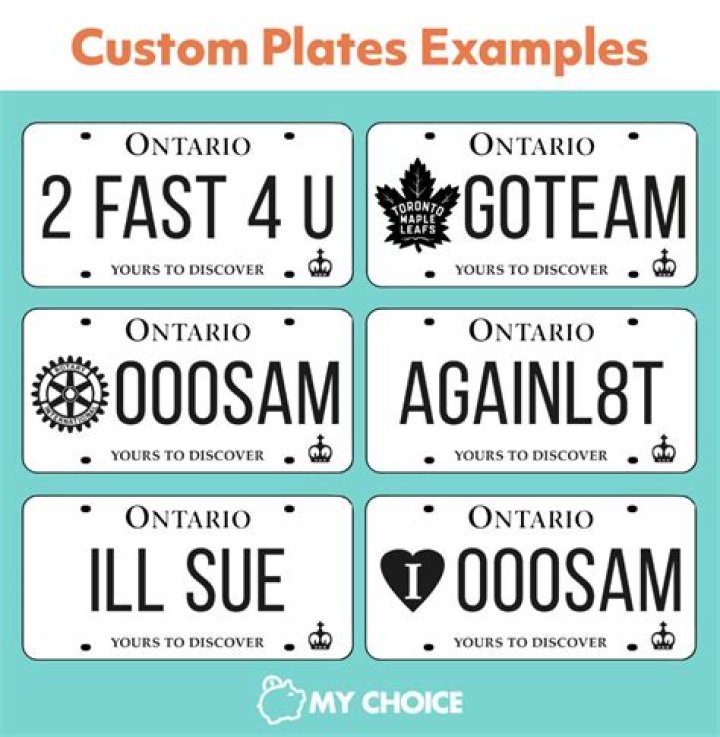
Driver Gothic
Simply so, what is the font used on license plates?
The FE-Schrift or Fälschungserschwerende Schrift (forgery-impeding typeface) is a sans serif typeface introduced for use on licence plates. Its monospaced letters and numbers are slightly disproportionate to prevent easy modification and to improve machine readability.
Similarly, is the letter O used on license plates? Several states do not regularly use certain letters — most commonly the letters I, O, and/or Q — in their plates, except on vanity plates, so as not to confuse observers with the numbers one and zero.
Then, what font is used on California license plates?
License Plate Font Specimens: Penitentiary Gothic (California)
What letters are not used on Texas license plates?
California currently only uses I, O, and Q in between two other letters, for example "1AQA000". A unique example of character use is Texas, which used to issue serials using all 26 letters but currently skips all vowels along with the letter Q on passenger plates (as these letters are reserved for truck plates).
All letters (except I) and numbers (except 1) are the same height and width. Characters must be 50mm wide and 79mm tall. What is virtual plate?
What font is used for South African number plates?
Only the GE font, specifically designed for the South African number plate industry, may be used for number plates. What font is used on Victorian number plates?
These plates use the FE-Schrift font and look like German plates. How wide are license plates?
For standard plates, which are currently in the format 1ABC123, the letters I, O, and Q are not used for the first or third letter, because then they could be confused with numbers. There are also some 3-letter combinations that are not used because they could conceivably be considered offensive. What does MC mean on a license plate?
Typically an O and a 0 have slightly different shape. The 0 is almost always a defined oval shape. The O might be more of a rectangle shape with rounded corners to match the font size and width of the other letters on a license plate. Does California use the letter O on license plates?